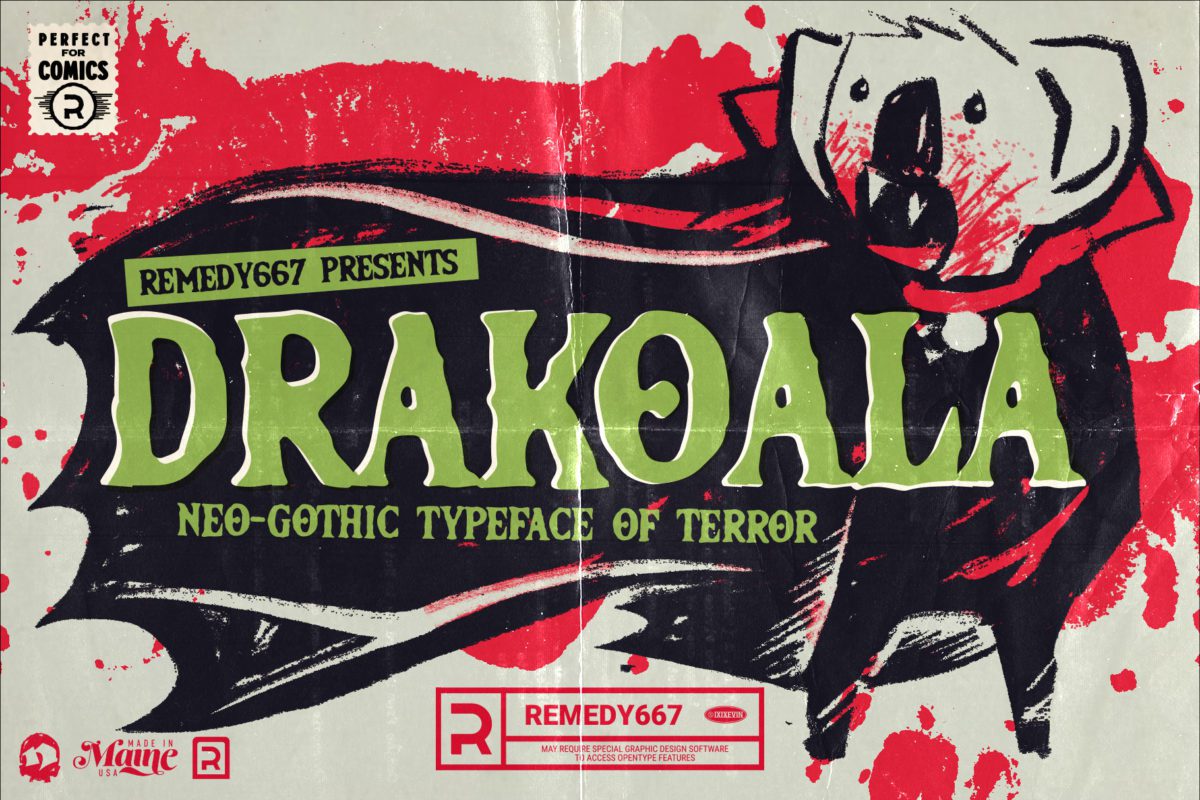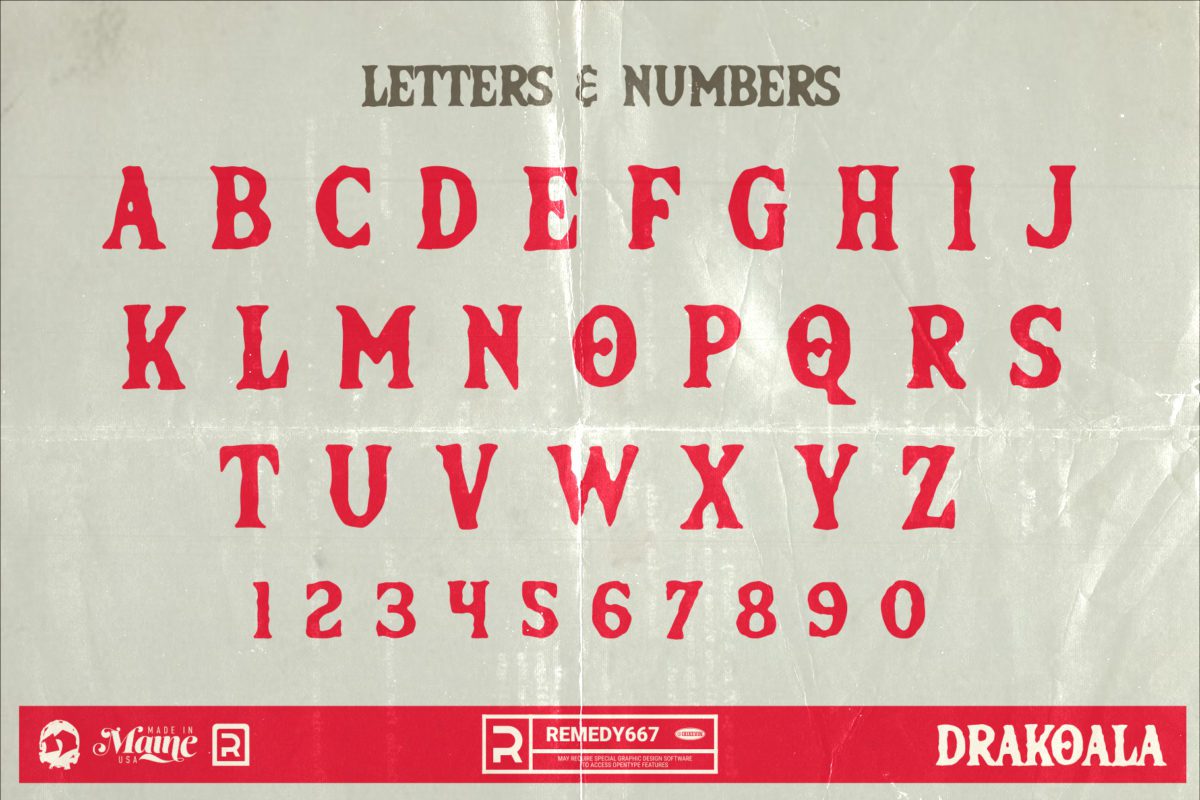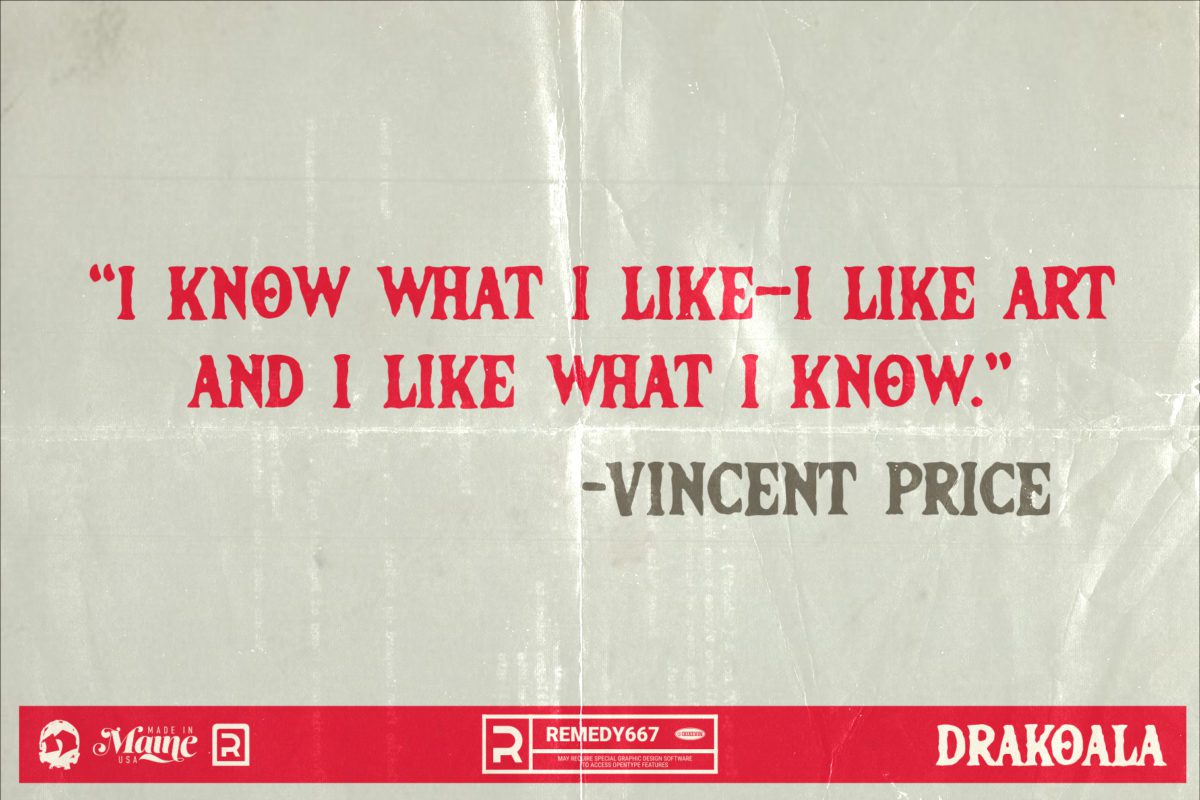
Drakoala
Drakoala combines the classic look of vintage movie posters with a modern hand drawn feel making it perfect for a variety of projects. Drakoala is perfect for headlines, titles & logos and plays well in film, magazines, comics, packaging, toys, posters, games… any project you can sink your teeth into.
• Vintage yet modern
• Great for any project type from personal to professional